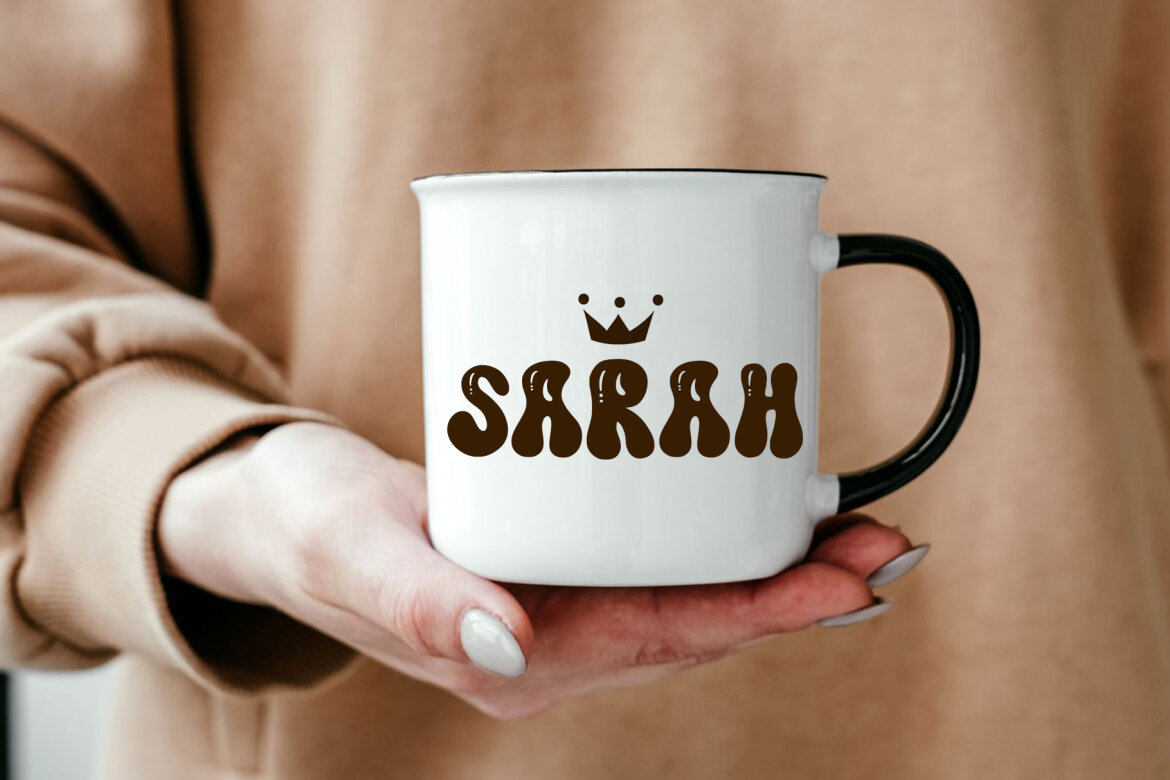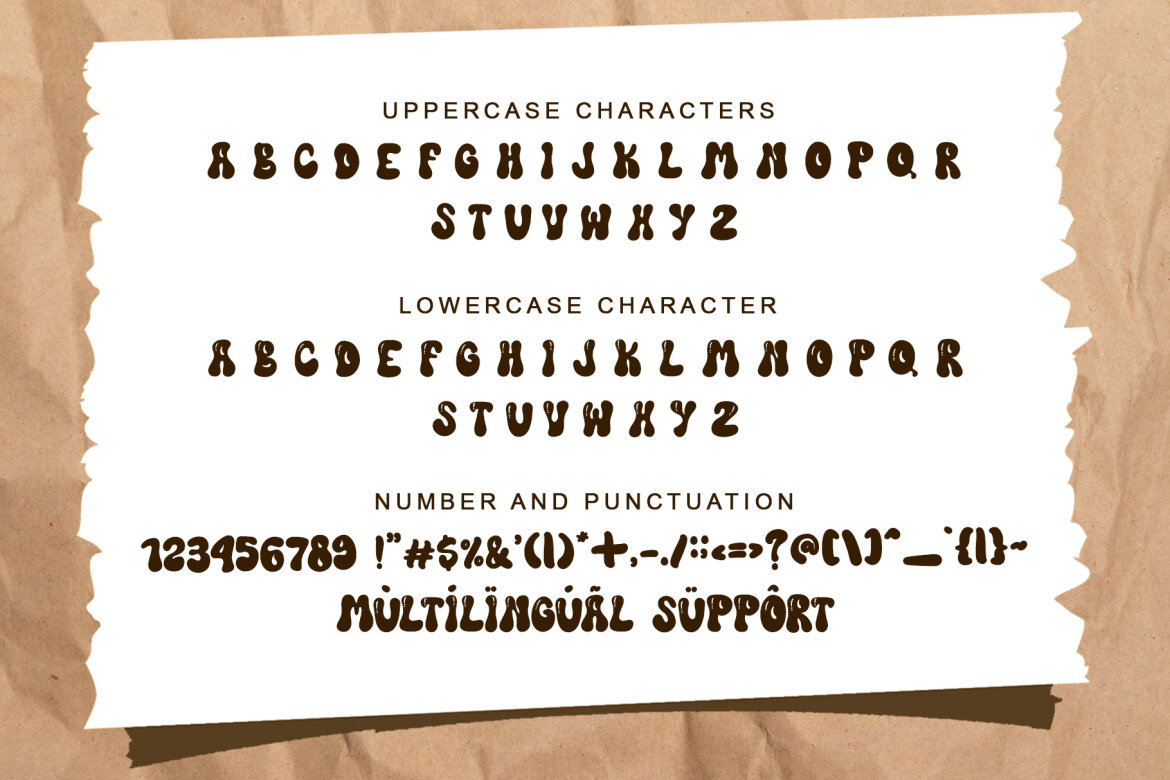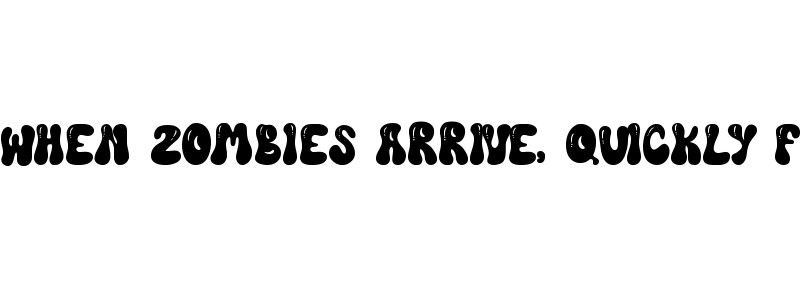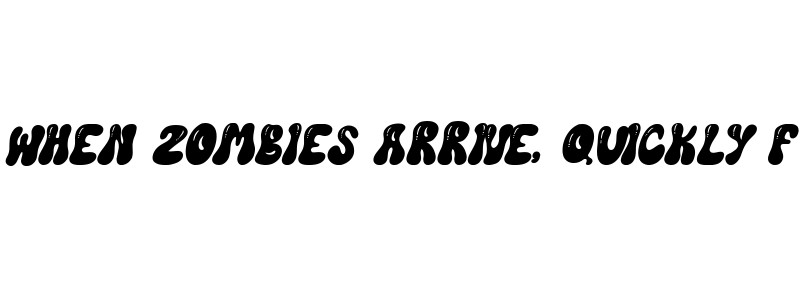
Soul Vibe FREE Font
Soul Vibe is a dynamic display font with bold lines and a retro-modern style. Perfect for posters, logos, and album covers, it brings energy and character to designs, creating a striking and memorable visual impact.
• support multilingual; ä ö ü ä ö ü ß ¿ ¡